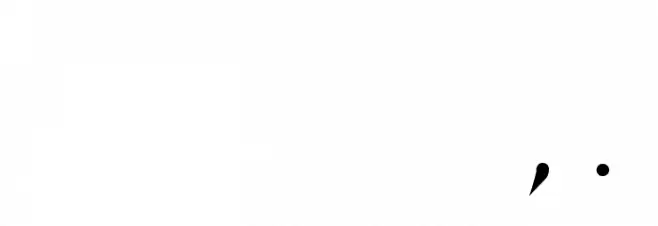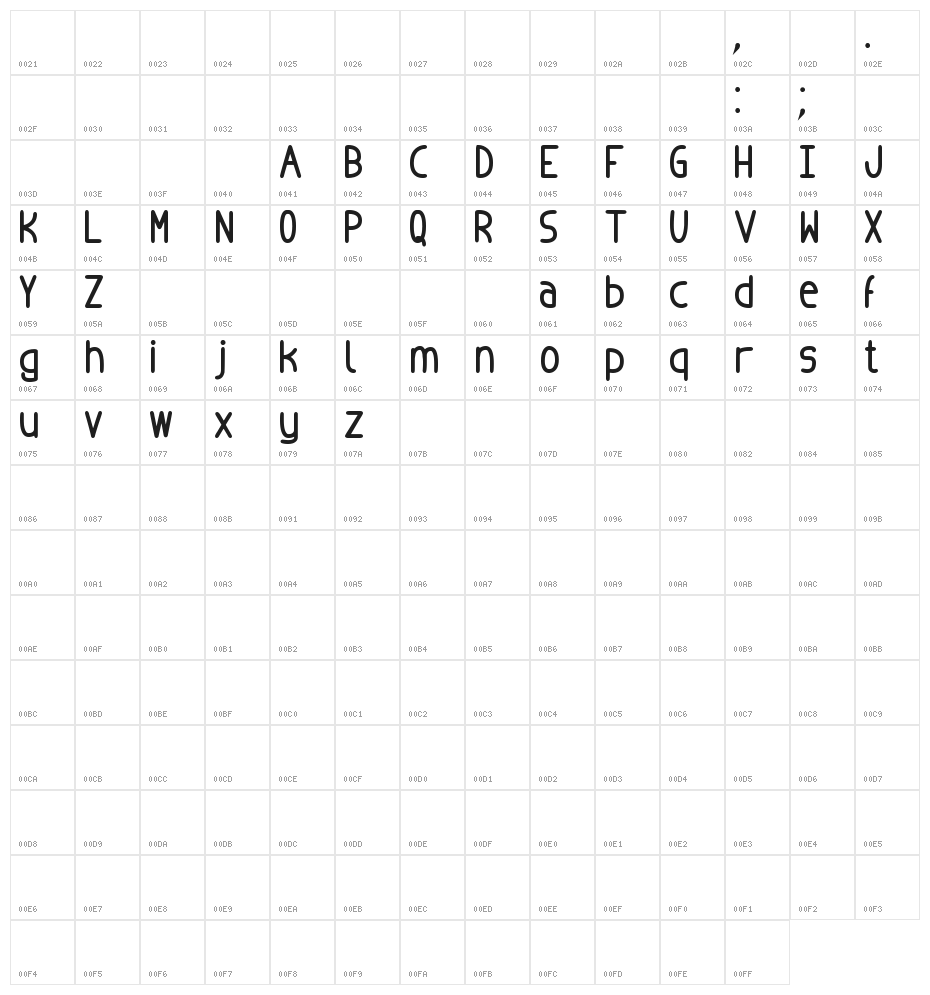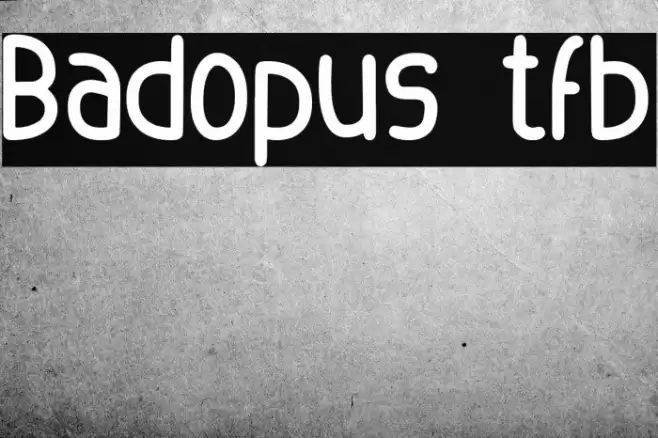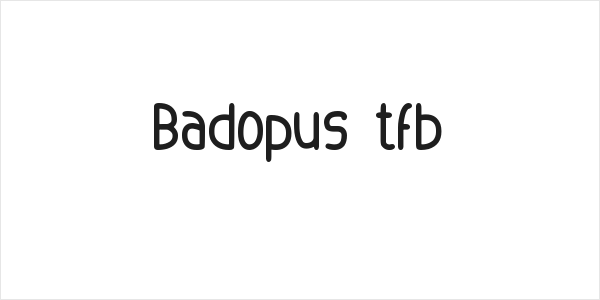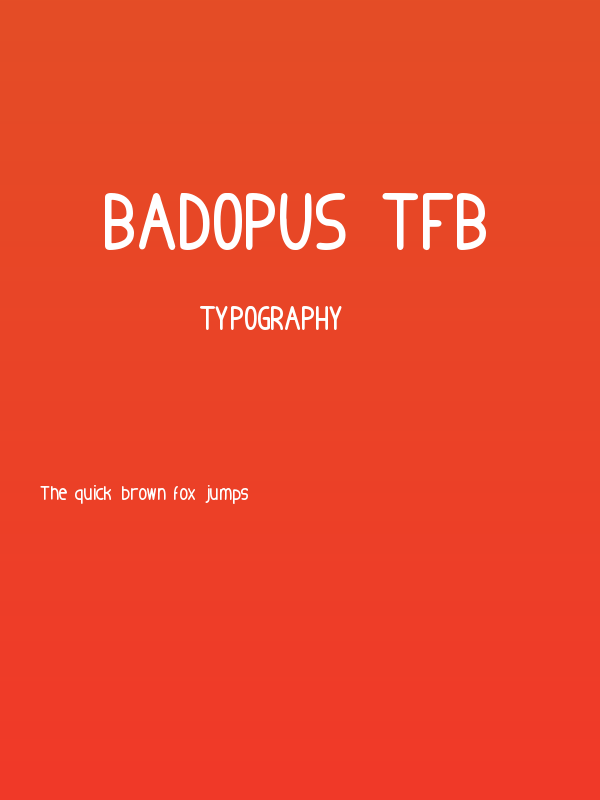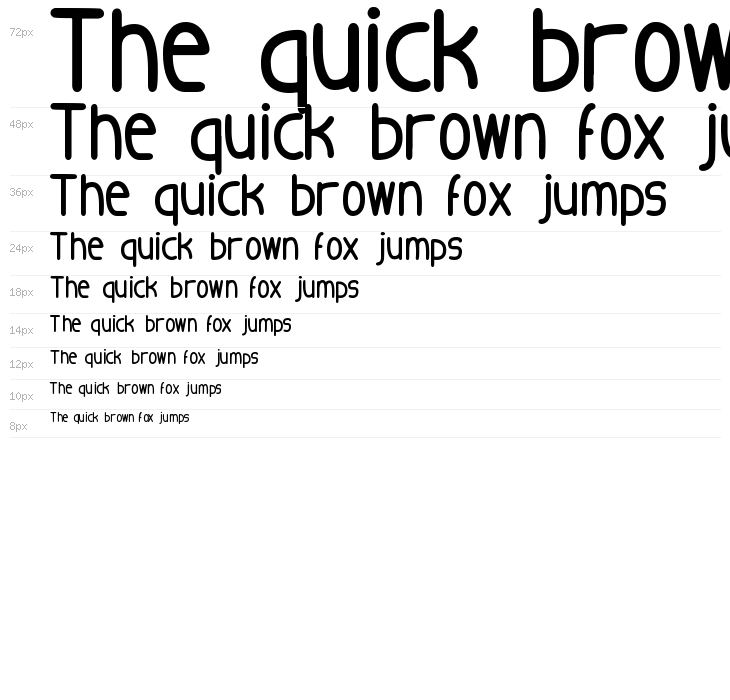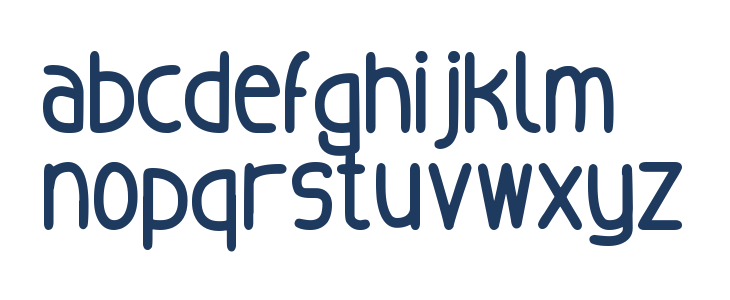
Badopus tfb Font
Badopus tfb Description
This font features a playful and rounded design, characterized by its smooth curves and friendly appearance. The letters are evenly spaced with a consistent stroke width, giving it a uniform look. The uppercase and lowercase letters maintain a similar style, with rounded edges and a slightly whimsical touch. The font lacks sharp angles, contributing to its approachable and informal feel. It is versatile enough to be used in various contexts where a casual and inviting tone is desired. The overall design is clean and legible, making it suitable for both digital and print media.
| Proposed Projects | Ideal for children's books, playful branding, casual invitations, and friendly marketing materials. |